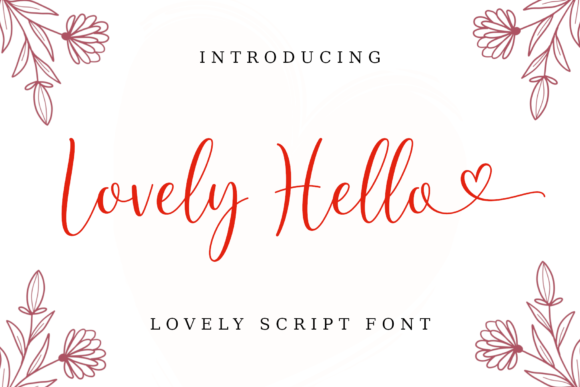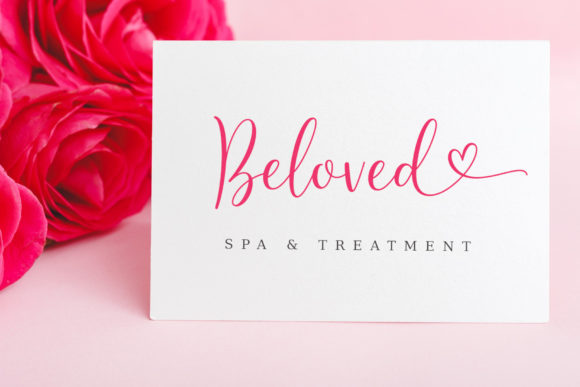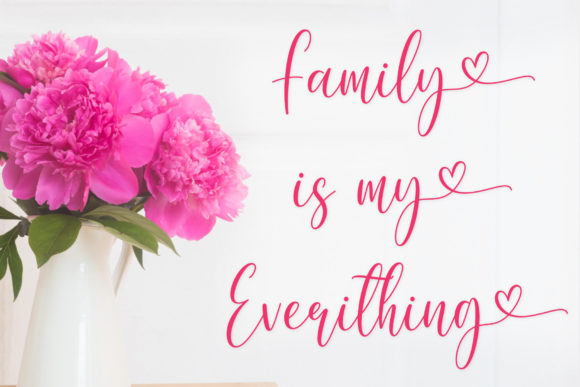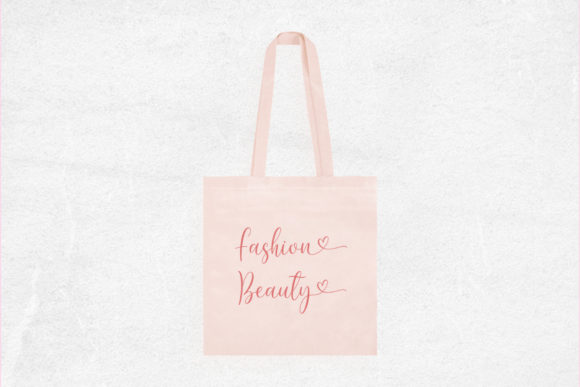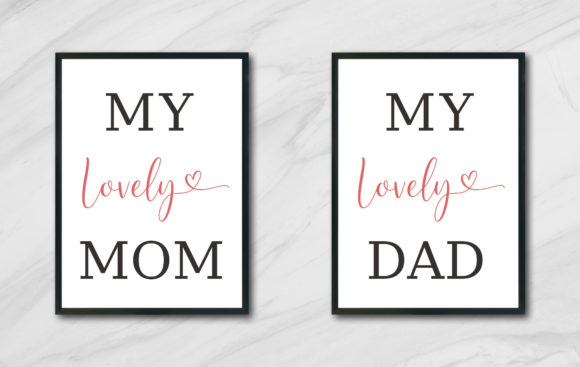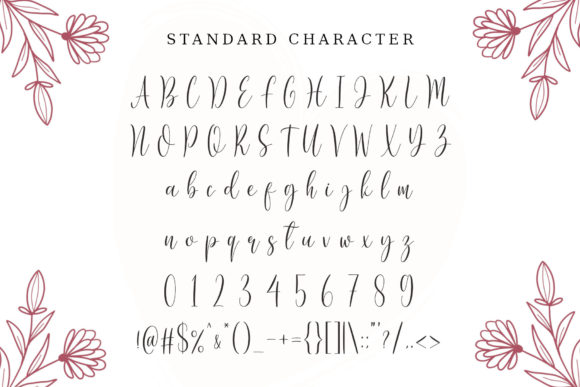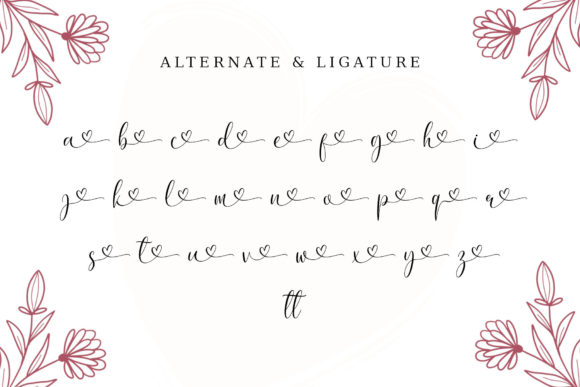
Lovely Hello Font
About Lovely Hello Font
Lovely Hello is a lovely script font, with a romantic and delicate touch. This font is PUA encoded which means you can access all glyphs and swashes with ease!